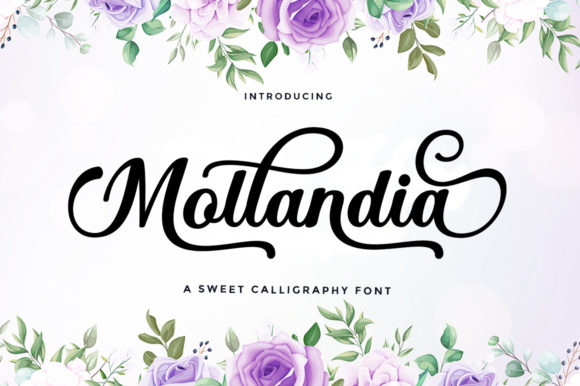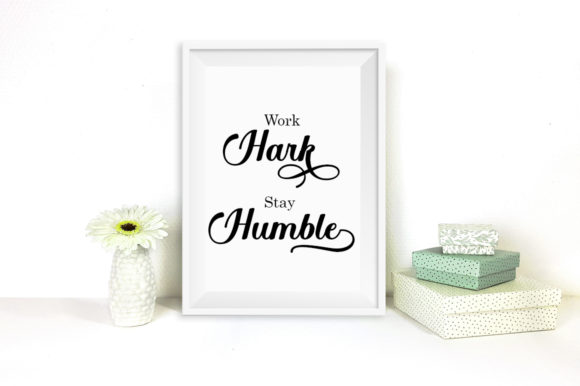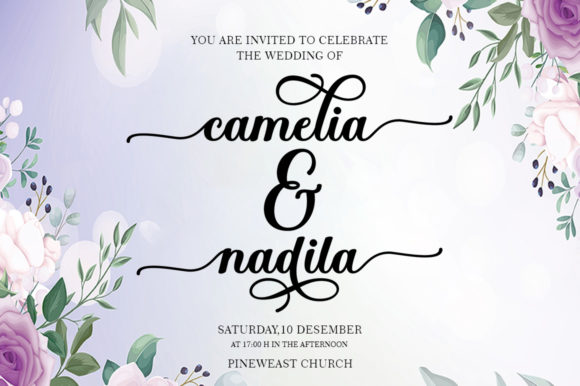
About Mollandia Font
Mollandia is a romantic and smooth handwritten font. Dainty and joyful, this font will be ideal for writing wedding invitations, cards or any other design that may need a romantic, personalized touch! This font is PUA encoded which means you can access all of the glyphs and swashes with ease!